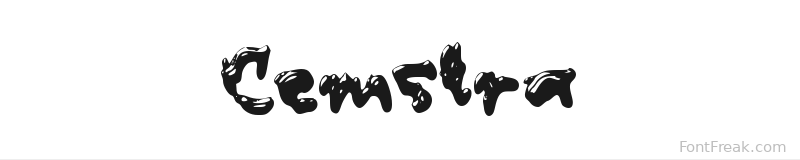
Cemstra
About Cemstra
Cemstra, designed by Wahyu Eka Prasetya in 2021, is a captivating display font that encapsulates a unique artistic flair. This font falls under the decorative category, characterized by its playful and irregular letterforms that evoke a sense of creativity and spontaneity. The strokes vary in weight, providing an organic feel that is both charming and engaging. The distinct contrast and spacing between the letters enhance its visual appeal, making it an eye-catching choice for various applications.
The Cemstra font is particularly well-suited for creative projects that demand a touch of whimsy and personality. It excels in use cases such as wedding invitations, where its artistic style can convey a joyful and celebratory atmosphere. Additionally, it can be effectively employed in movie posters to capture attention and reflect an unconventional theme. Restaurant menus will benefit from the font's lively character, adding an inviting touch to the dining experience. Content creators and graphic designers will find this font invaluable for crafting social media graphics, logos, or promotional materials that stand out in a crowded digital space.
What sets Cemstra apart is its ability to infuse personality into any design. It invites creativity and encourages experimentation, making it a standout choice for those seeking to make a memorable impression. With its distinctive aesthetic and versatile applications, Cemstra is a must-have addition to any designer's toolkit.